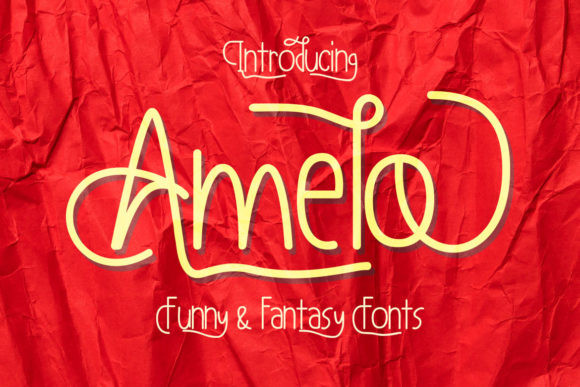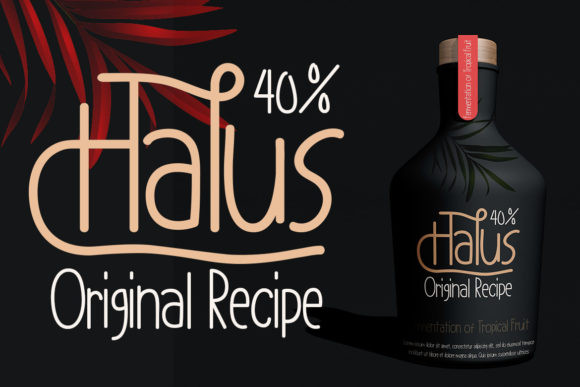
Amelo Font
Amelo is a refined and veritable script font. Fall in love with its adaptable style and use it to create ravishing wedding invitations, beautiful stationary art, eye-catching social media posts, and much more!